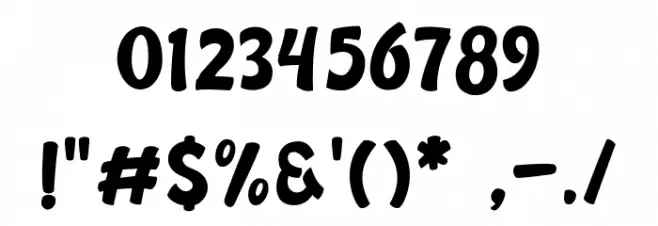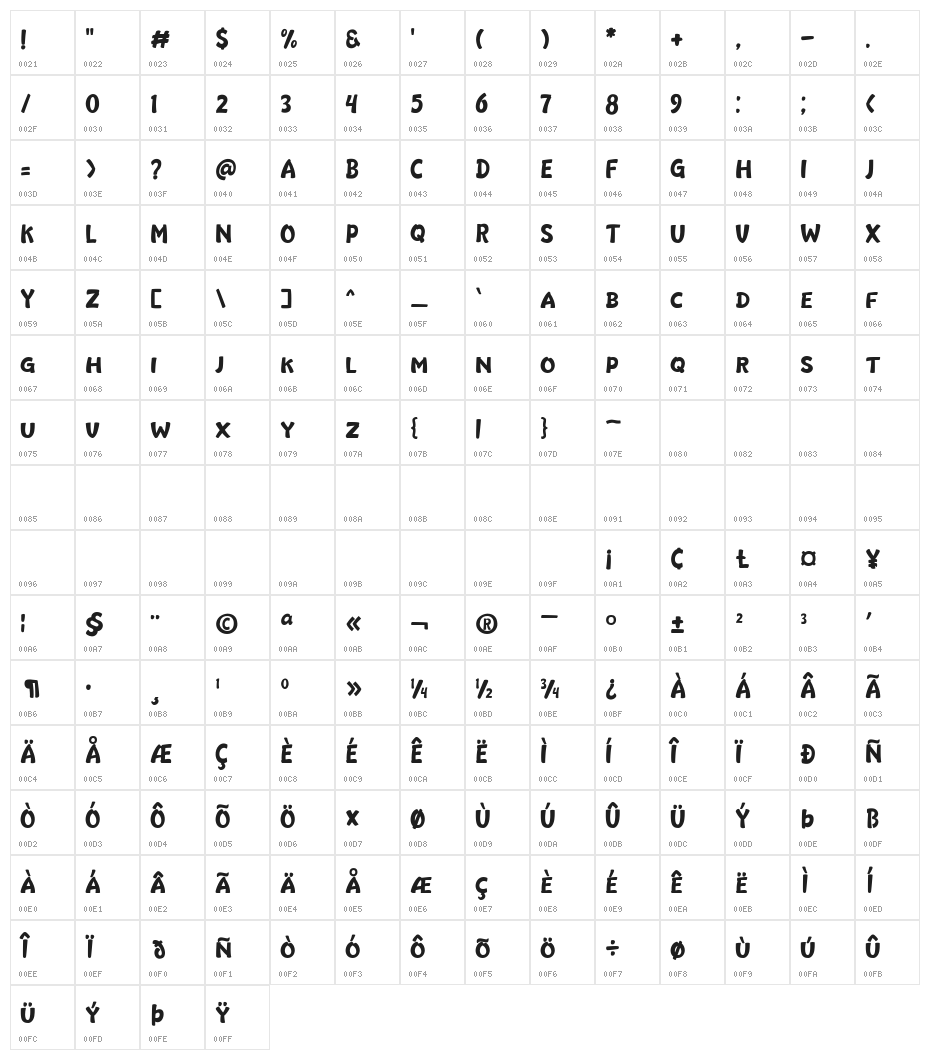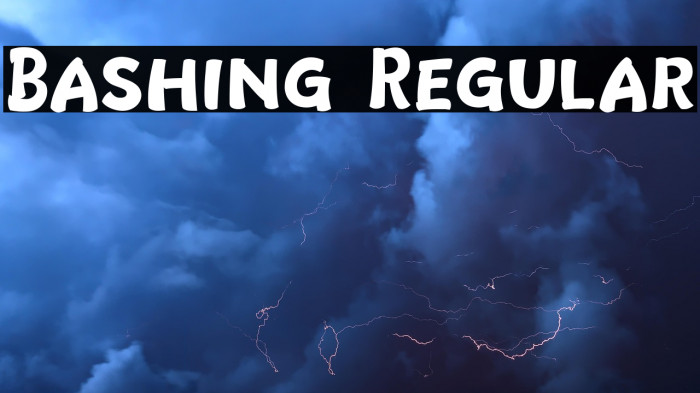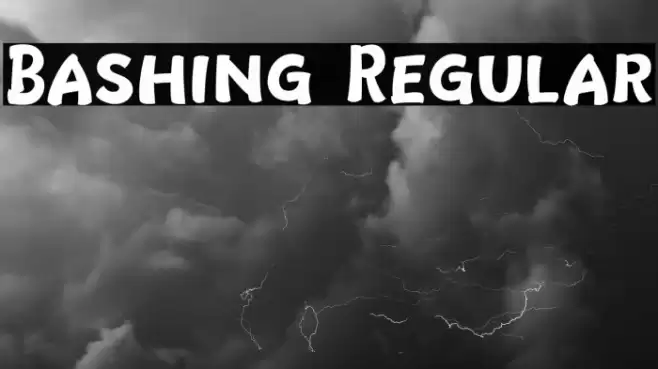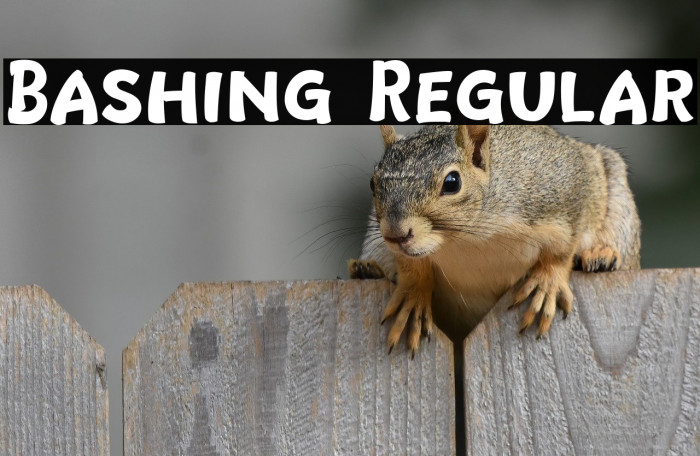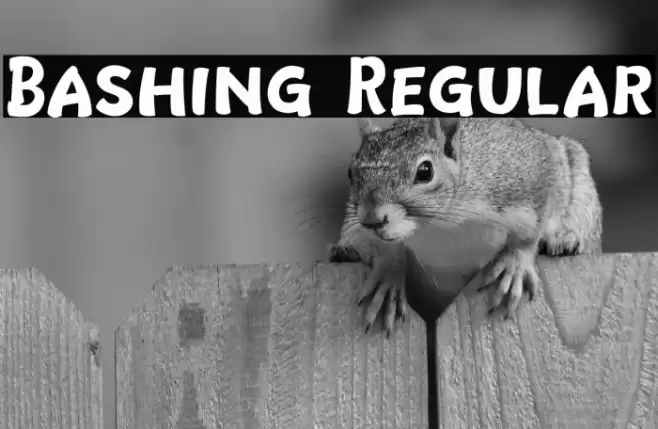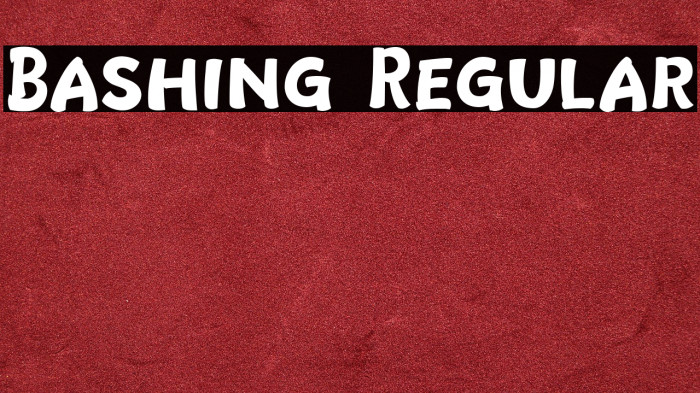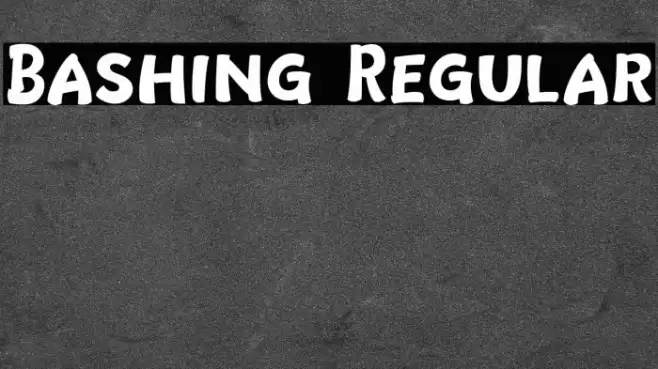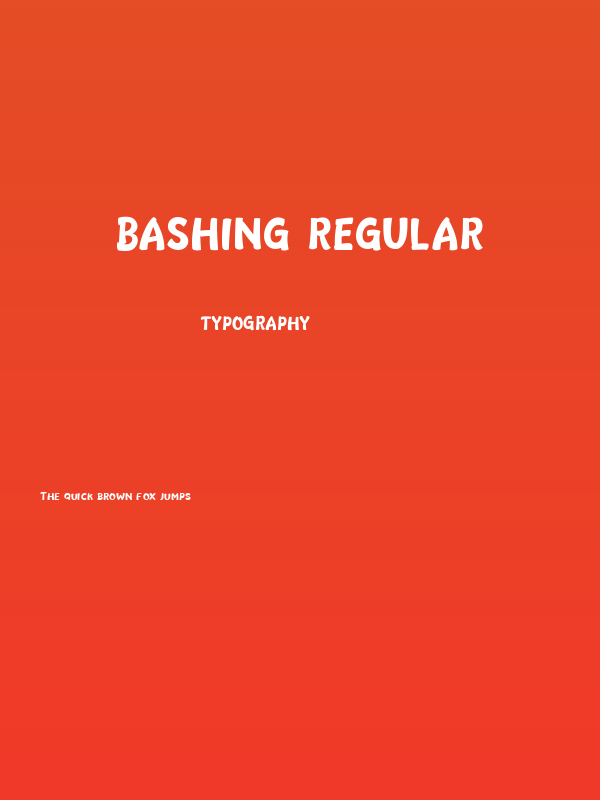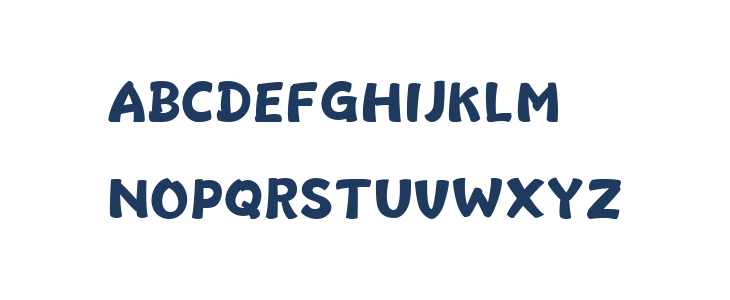
Bashing Regular Font
Bashing Regular Description
This font features a bold and playful design, characterized by its thick strokes and rounded edges. The letters have a hand-drawn appearance, giving them a casual and friendly feel. The uppercase and lowercase letters maintain a consistent style, with a slight slant that adds to the dynamic look. The numbers and special characters are equally bold, ensuring readability and visual impact. This font is ideal for projects that require a fun and approachable aesthetic, such as children's books, posters, or branding for playful products.
| Overall Style | Playful, Casual |
| Proposed Projects | Ideal for children's books, playful branding, posters, and casual invitations. |